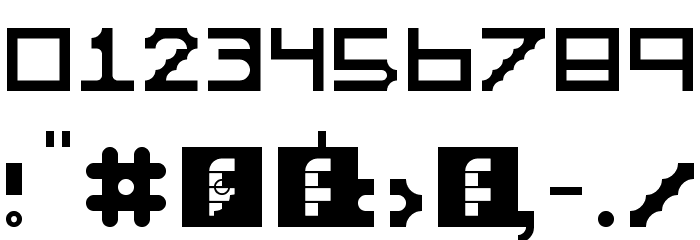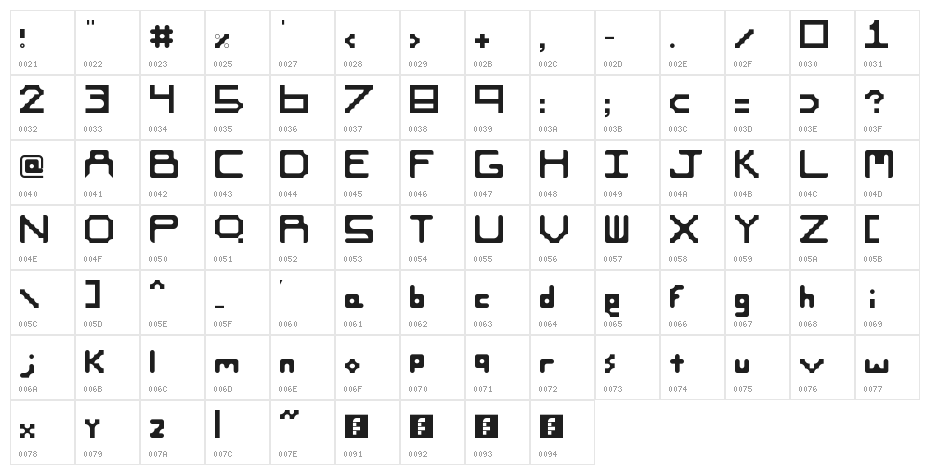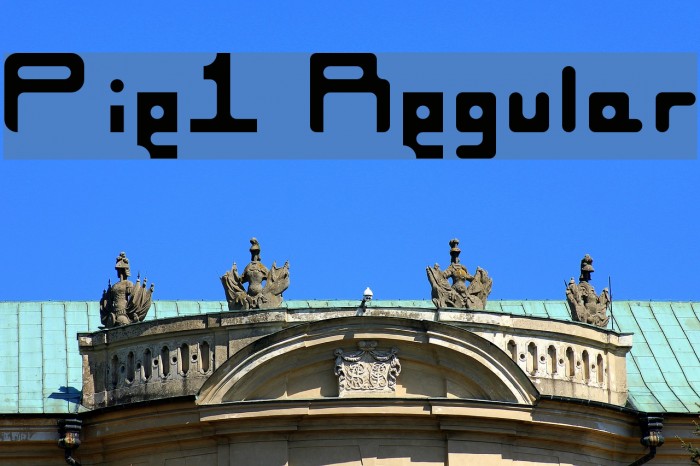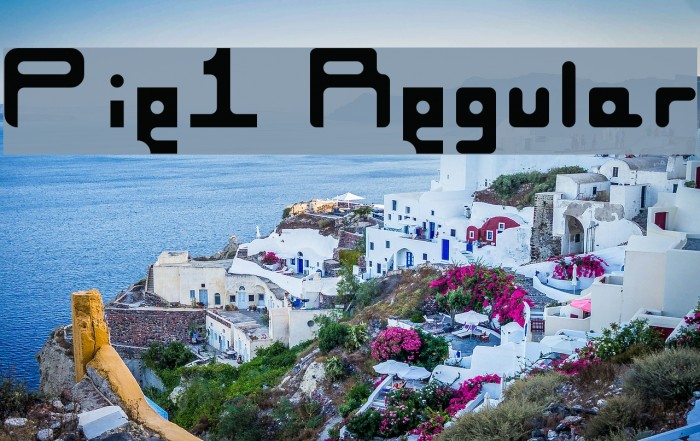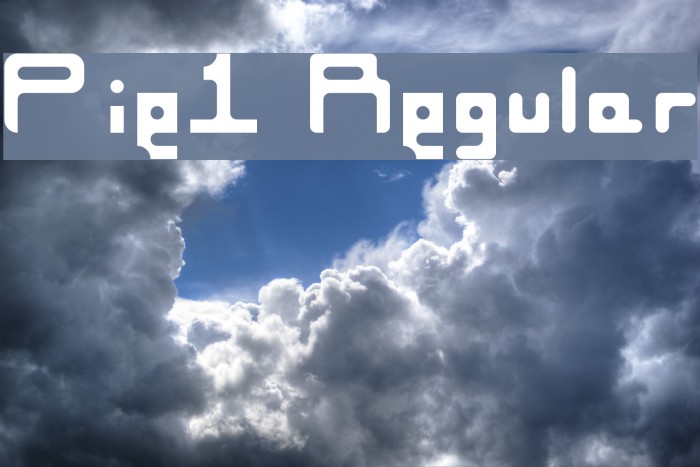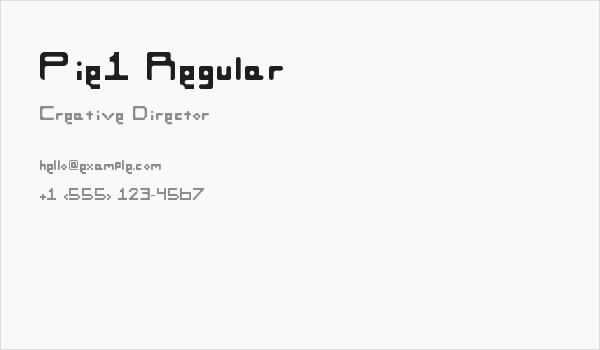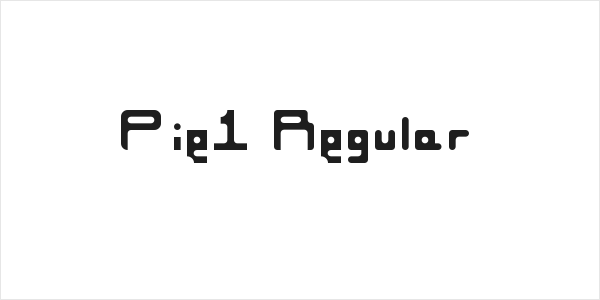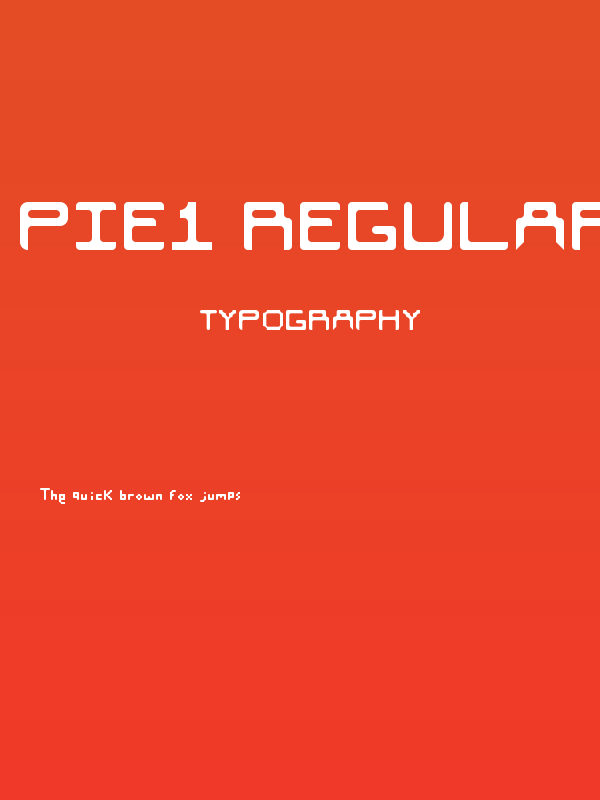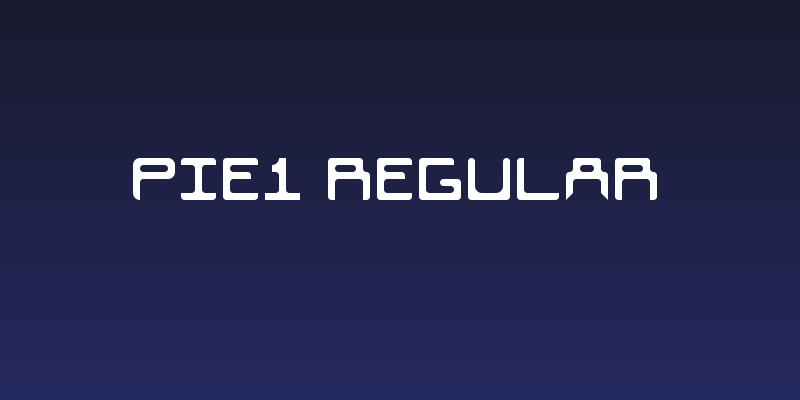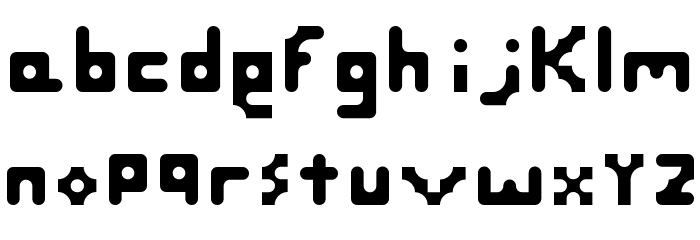
Pie1 Regular Font
Pie1 Regular Description
This font features a unique and playful design with a blocky, pixelated appearance. The characters are bold and have a distinctive geometric style, with rounded edges that add a touch of softness to the otherwise angular forms. The uppercase and lowercase letters maintain a consistent height, creating a uniform look across the text. Numbers and special characters follow the same design principles, ensuring a cohesive appearance. The font's quirky and modern aesthetic makes it suitable for creative and informal projects.